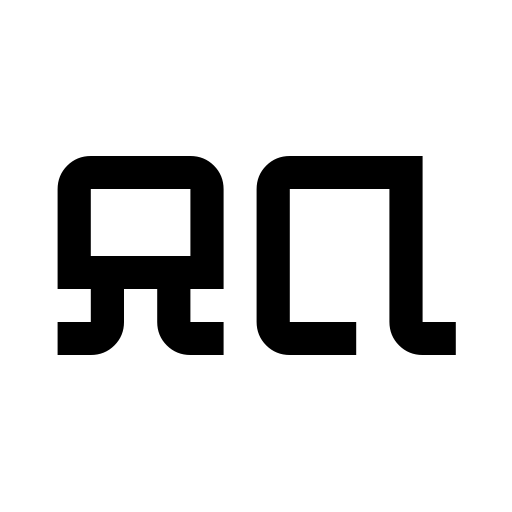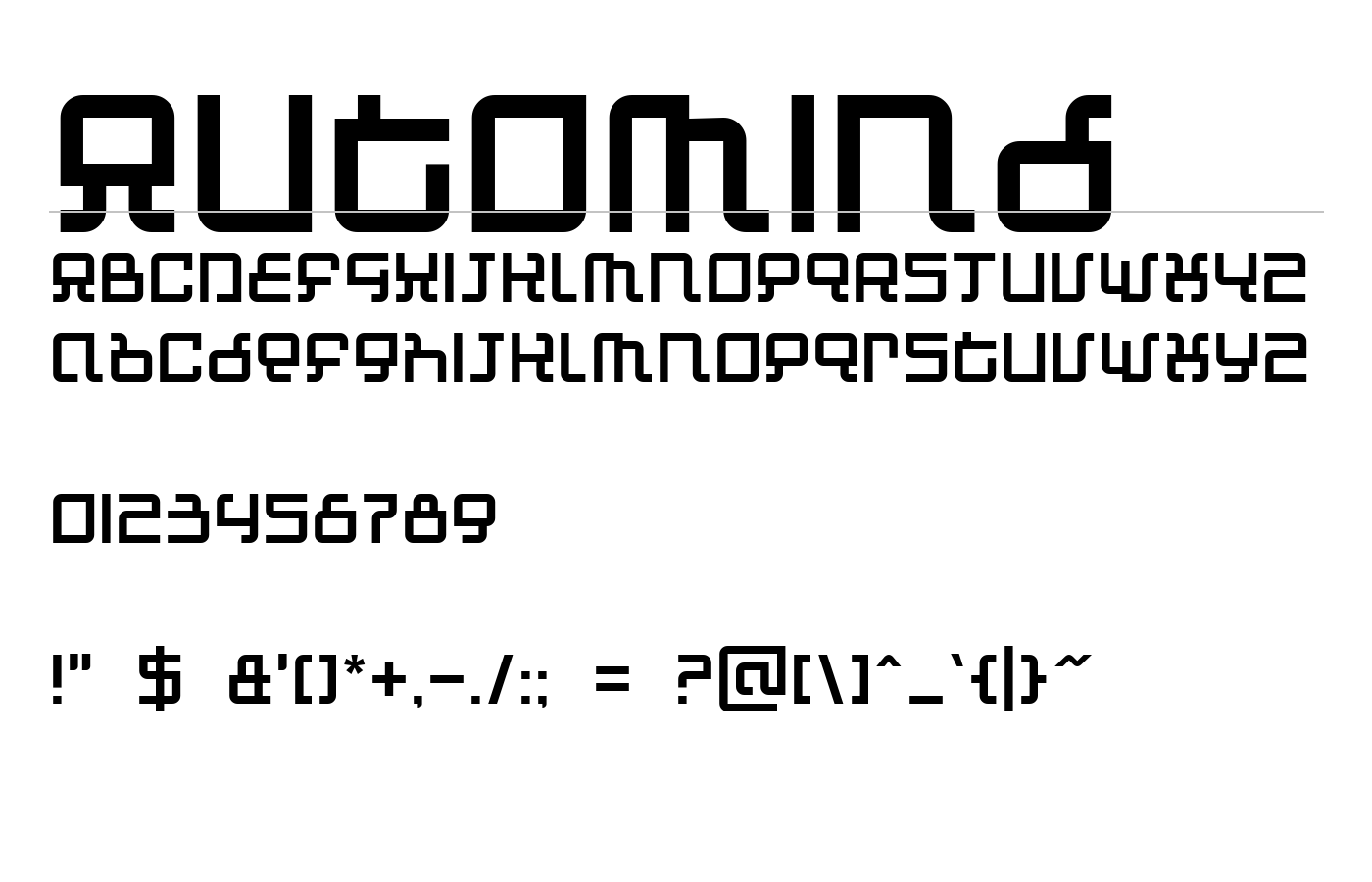
Automind is a modern, geometric sans serif font with a digital, futuristic vibe characterized by its uniform stroke weight and square-shaped letterforms. Its compact width, high x-height, and distinctive angular details make it ideal for tech-oriented branding, headlines, and digital interfaces that require a sleek, innovative look. This font works especially well for projects seeking a contemporary, cutting-edge feel with a strong visual presence.
Automind Font